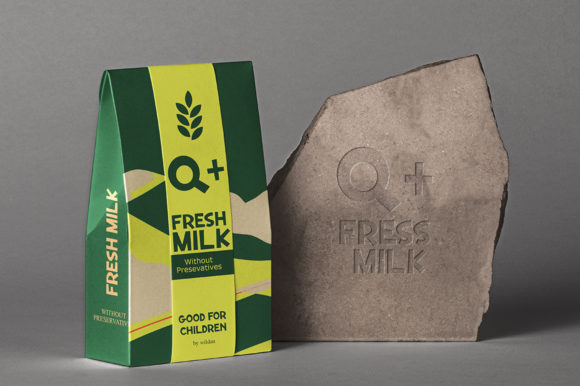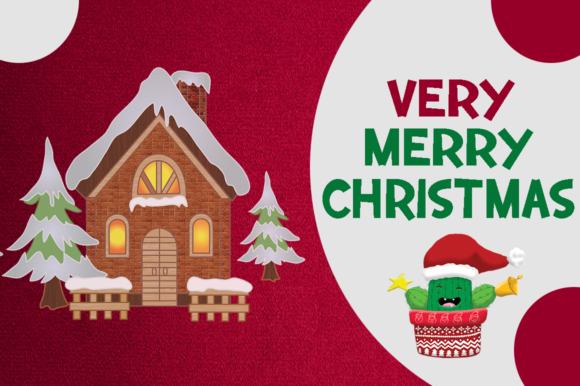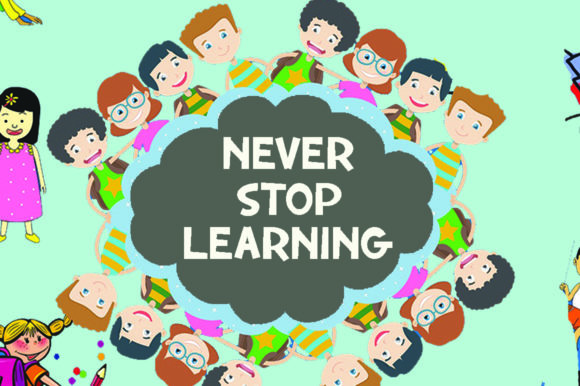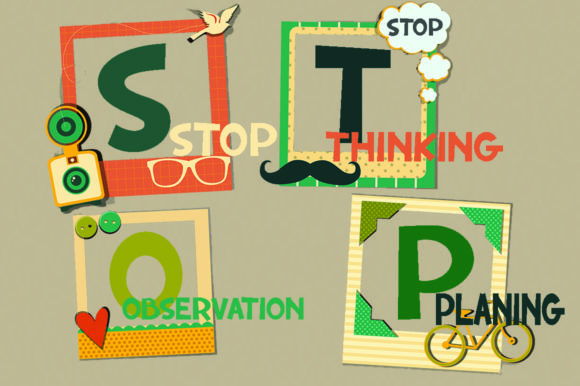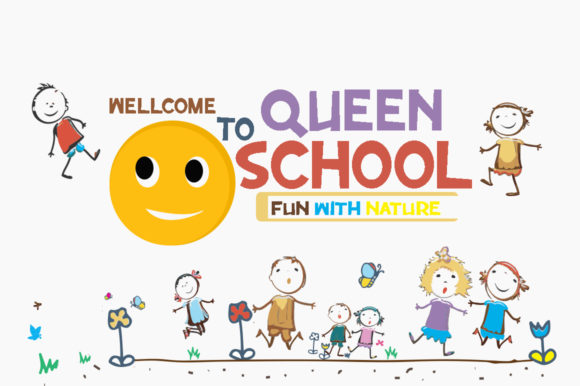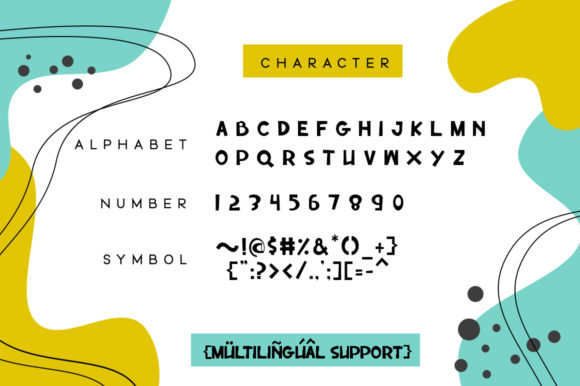
The Broken Home Font: A Game-Changer for Your Design Projects
I’ll never forget the design project that made me fall in love with the Broken Home font. I was working on a branding project for a local coffee shop, and I was struggling to find the perfect font to capture their friendly and approachable vibe. That’s when I stumbled upon Broken Home, and it instantly became the star of the show. In this article, I’ll share my honest review of this amazing font, provide a practical guide on how to use it, and explore similar fonts that you might love.
- ✨ Thick and friendly lettering: Broken Home has a unique, bold style that’s perfect for headlines, titles, and emphasis text.
- ✅ Versatility: This font can work for a wide range of topics and industries, from playful and creative to serious and professional.
- 💡 Ease of use: Broken Home is incredibly easy to read and works well in various digital and print formats.
Of course, no font is perfect, and Broken Home has a few minor quirks:
- ⚠️ Limited use in body text: Due to its bold style, Broken Home might not be the best choice for lengthy body text. Instead, use it for headings and emphasis.
- 🤔 Glyph limitations: While Broken Home has a range of glyphs and OpenType features, it might not have every special character or symbol you need.
The Story Behind Broken Home
Broken Home was designed with the intention of creating a friendly, approachable font that could be used in a wide range of design projects. The designer aimed to craft a font that would be both bold and elegant, making it perfect for headlines, titles, and emphasis text. With its unique lettering style and versatility, Broken Home has become a popular choice among designers and creative hobbyists.
| What makes Broken Home font unique? | Broken Home’s thick and friendly lettering style, combined with its versatility, make it a standout font for various design projects. |
| Is Broken Home suitable for body text? | While Broken Home can be used for short paragraphs, it’s best suited for headlines, titles, and emphasis text due to its bold style. |